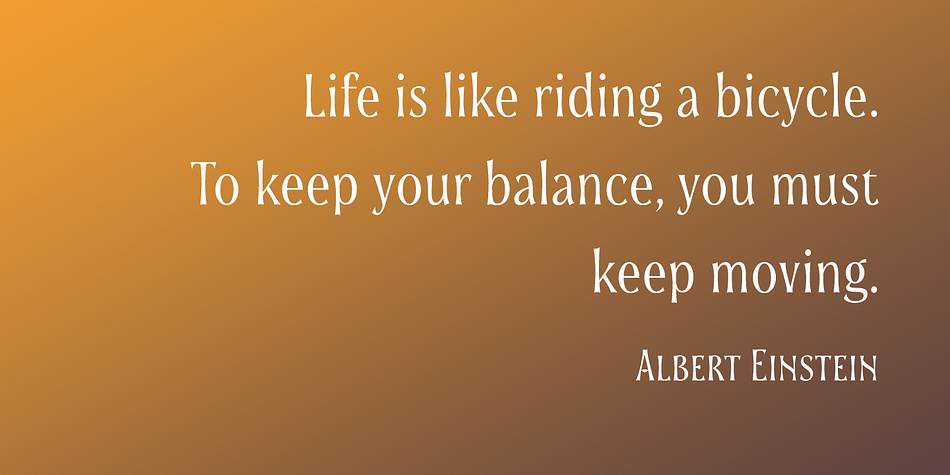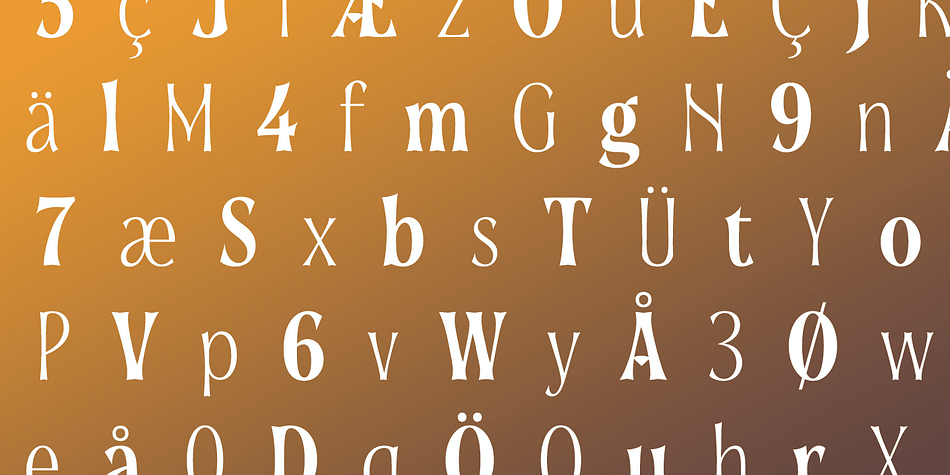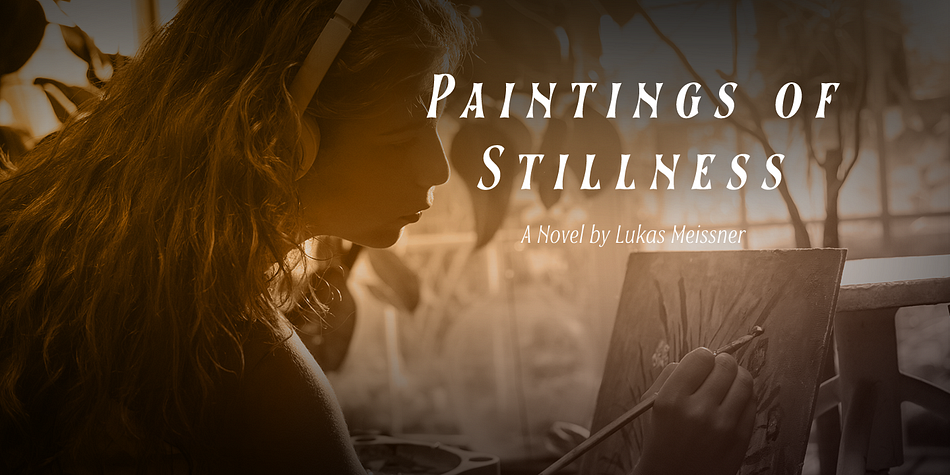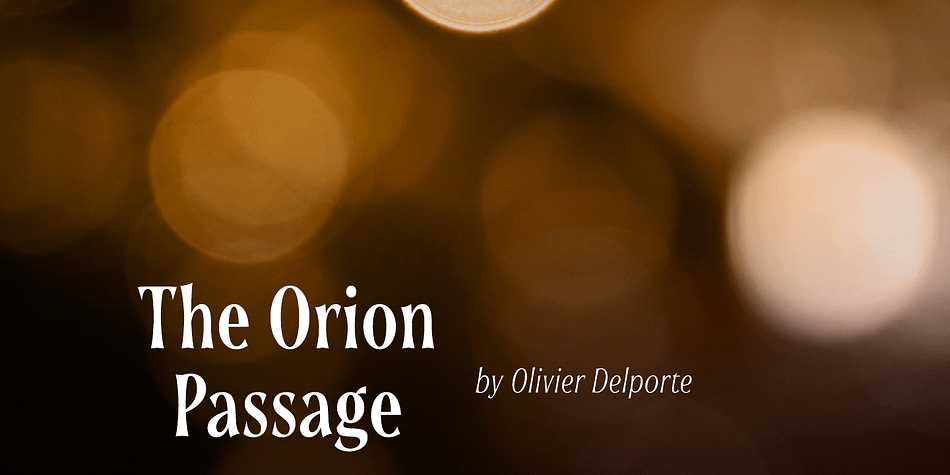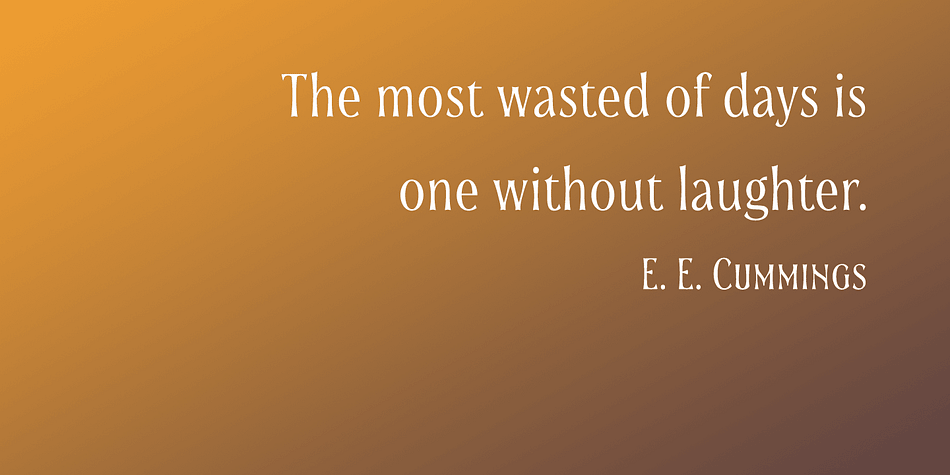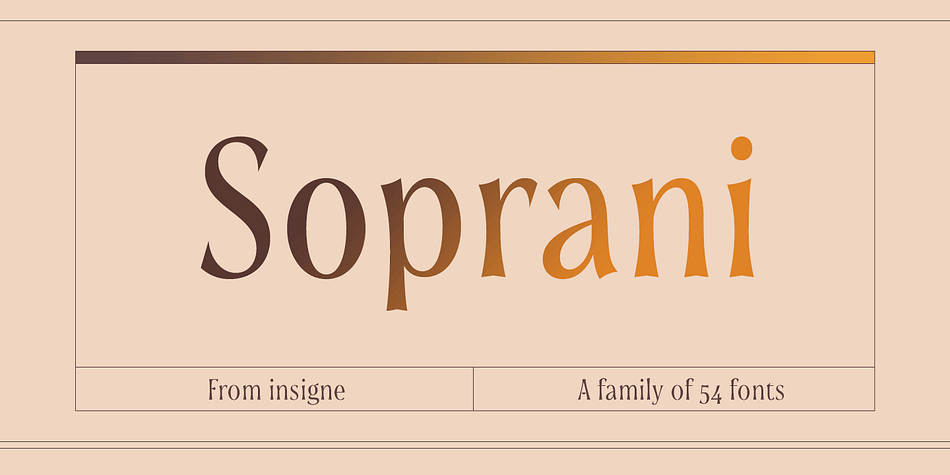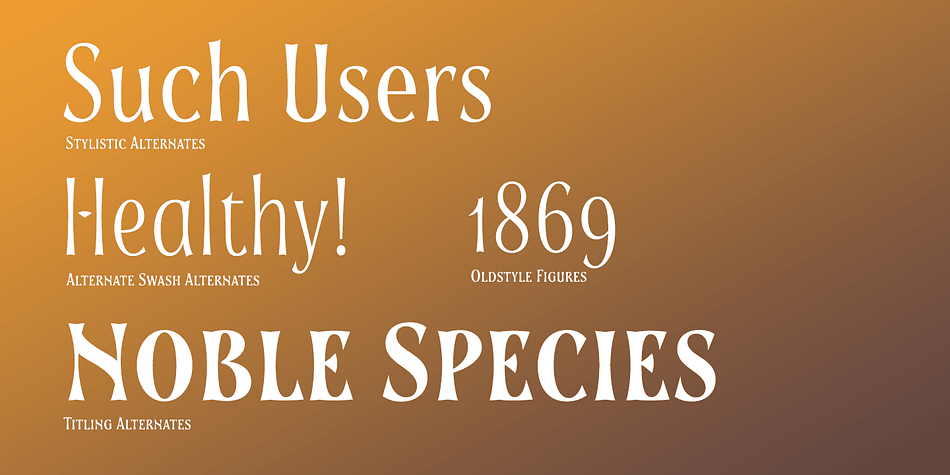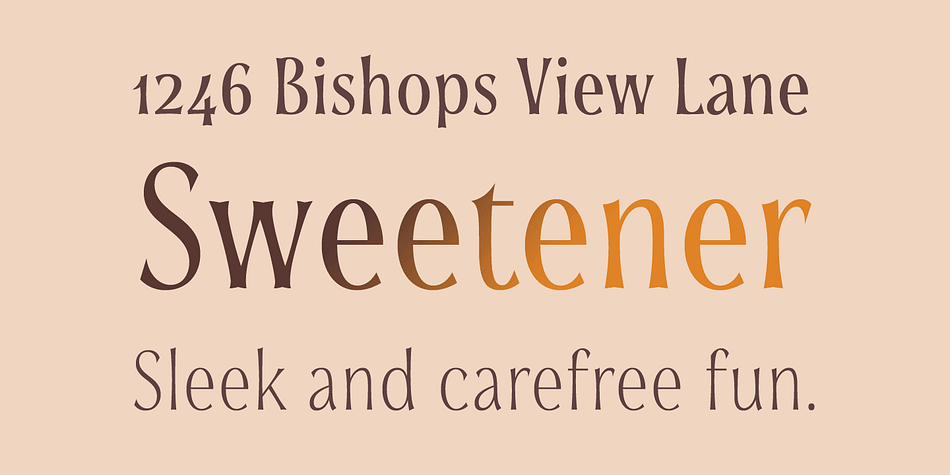
Designed by Jeremy Dooley, Soprani is an art nouveau font family. This typeface has fifty-four styles and was published by Insigne Design.
Soprani is a unique typeface inspired by a plaque found in New Zealand dating from the 1920s. The design was contemporized and brought 100 years into the future.
The serifs are dramatically flared at the end of the stems, while in the middle, they contract. This leads to a unique shimmering effect that draws the eye and catches your user’s attention. This typeface meets the demand for unique serif types that are both eye-catching and delicate. It’s a display face that’s ideal for very contemporary work.
This typeface has plenty of alternates and has a full complement of OpenType features. The 1920s inspire the design, with a bit of art nouveau and arts and crafts, yet the typeface is designed to meet contemporary design requirements.
It has a unique elegance and the letterforms are condensed more than most. Soprani is suggested for table books, menus, and various promotional materials, newspapers, television, motion pictures and other media.
There is a wide range of widths and weights available, from the thin, which is delicate and graceful, to a bold and robust black.
Production assistance by Lucas Azevedo and ikern.